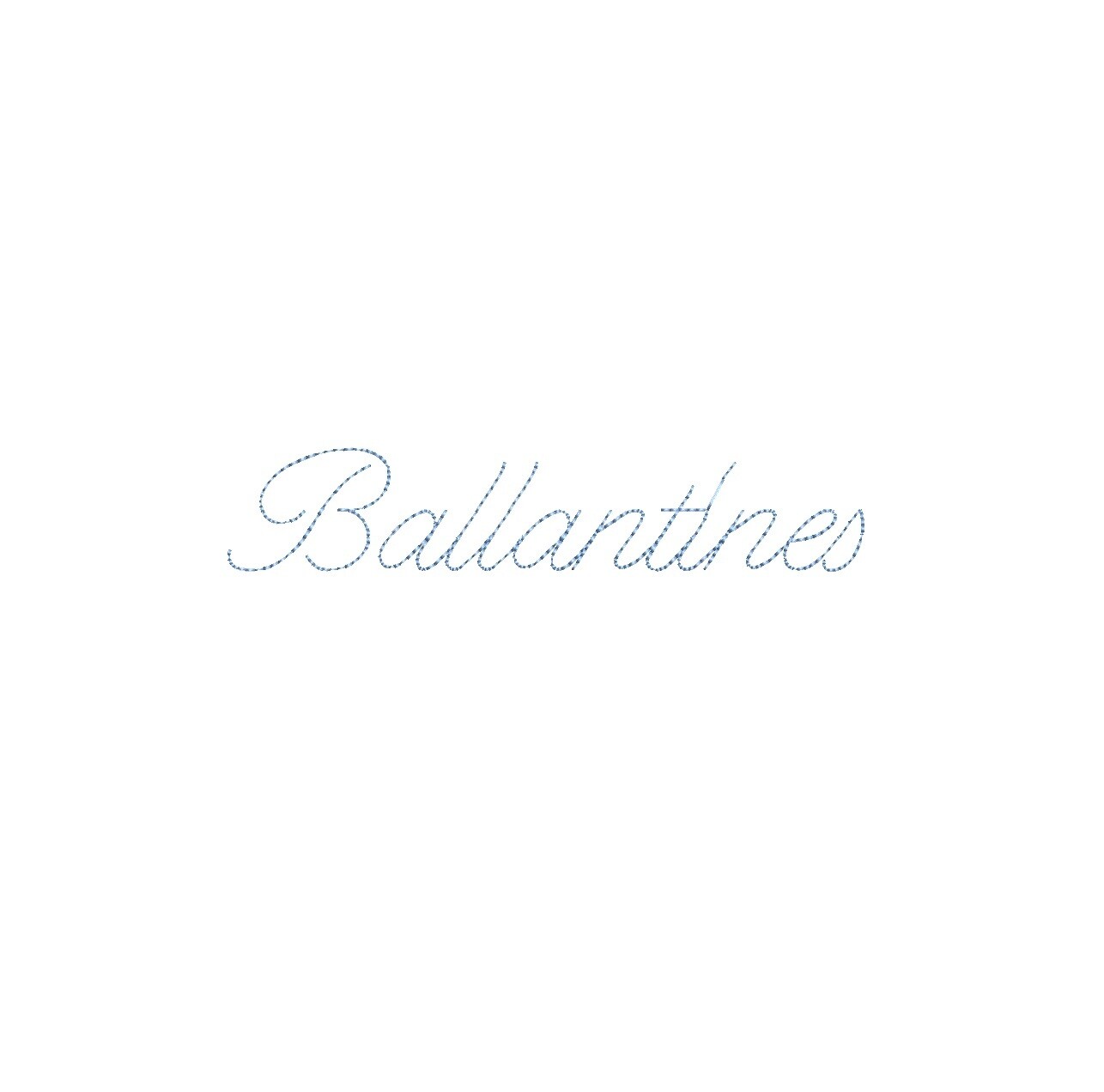
Introducing the Ballantines Bean Stitch ESA font - your ultimate digitizing solution compatible with Wilcom Studio e4.5.6 and Hatch 3 versions and up. This font embodies timeless elegance and versatility, making it perfect for a wide range of embroidery projects. Its finely crafted bean stitch style adds a touch of sophistication to apparel, accessories, and home decor. With seamless curves and impeccable lines, the Ballantines ESA font guarantees flawless embroidery results. Impress clients and express your creativity effortlessly with this user-friendly font, seamlessly integrating with your preferred software. Elevate your designs and bring your artistic vision to life - get it now!